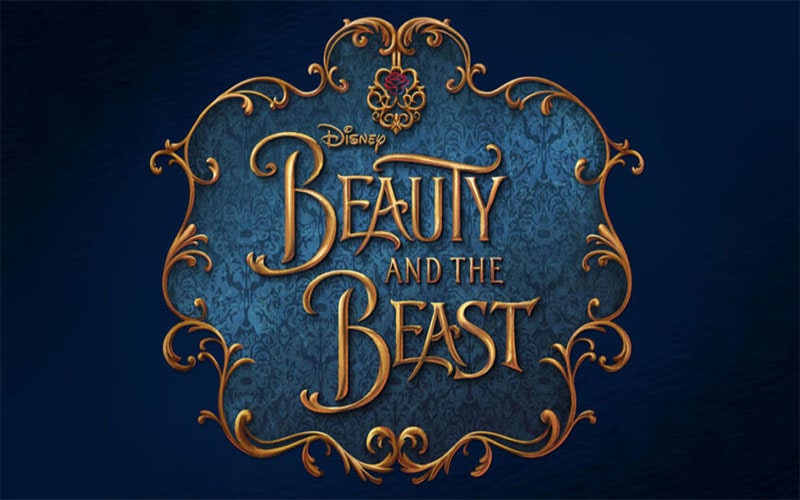
The Beauty and the Beast Font is a great decorative, modern, and script typeface. This typeface was created by Francis John S. Villo. It is an American movie that was released in 1991.
It offers adaptability for diverse design projects and is available in a variety of weights and styles such as Roman, Italic, and Bold.
The Beauty and the Beast Font allows users to produce appealing text in different languages with broad language support, including Latin script and diacritical marks.
Due to its stylish look, this font may inspire any project with a magical touch, such as wedding invitations, official logos, business projects, T-shirt designs, whimsical editorial designs, and romantic branding.
| Style: | Decorative, Modern, Script, Typeface |
You can also use this font for web designs, headlines, thumbnails, posters, brochures, advertisements, product packaging, and more. It is also used to design programs such as Canva and Coral.